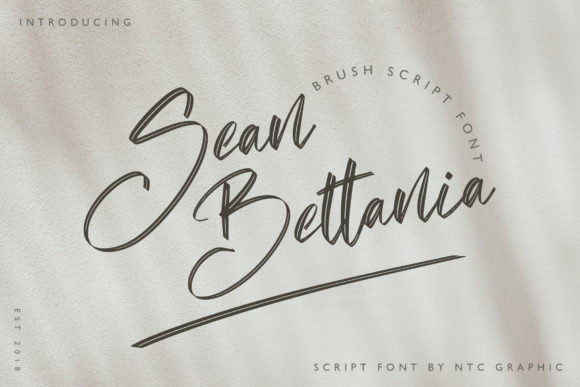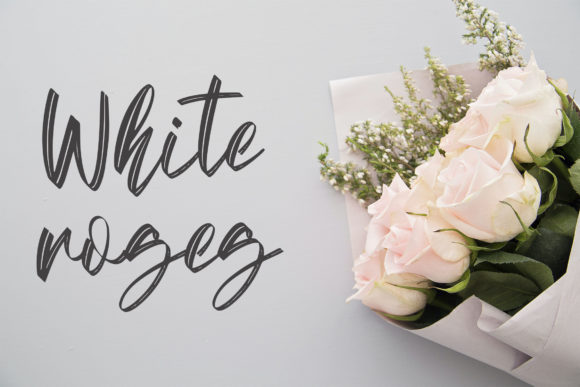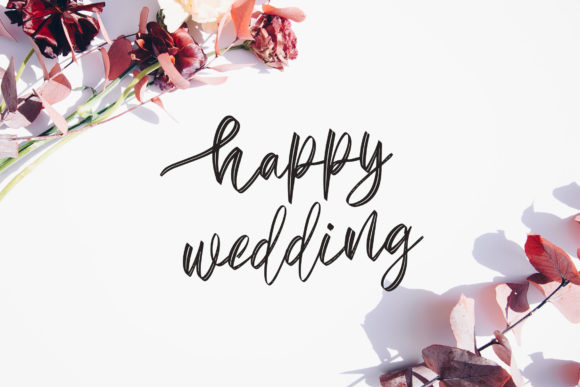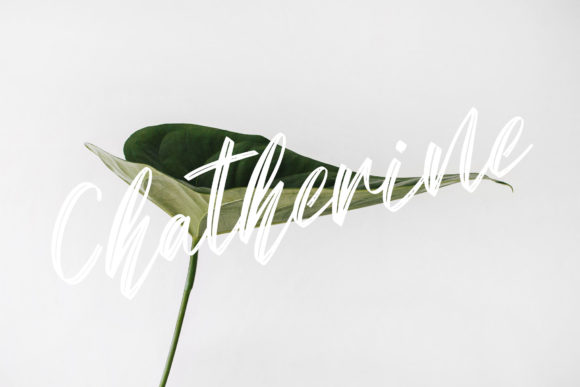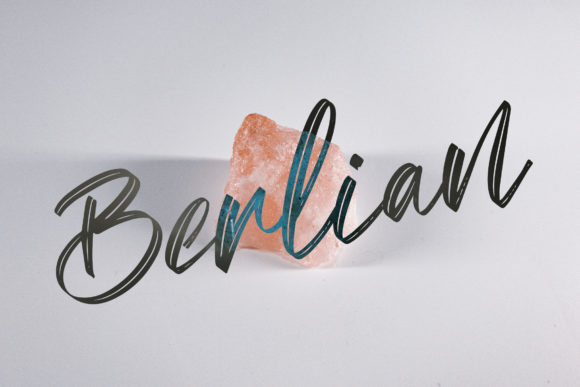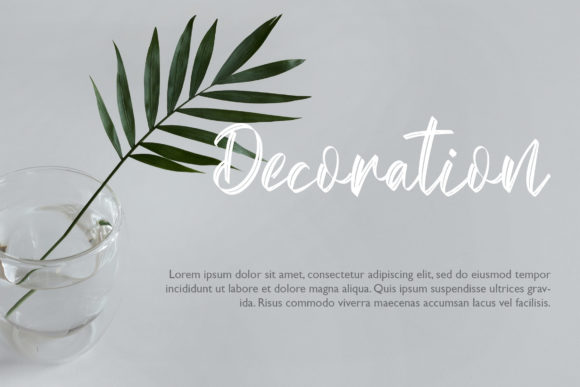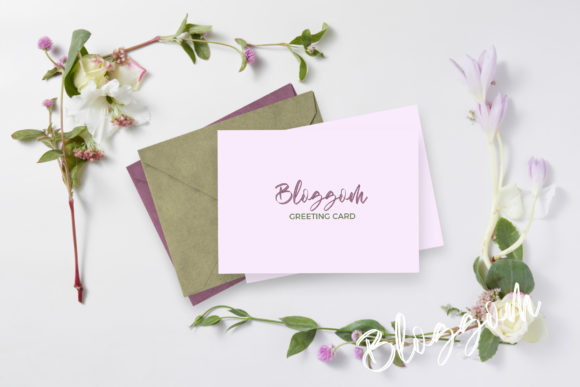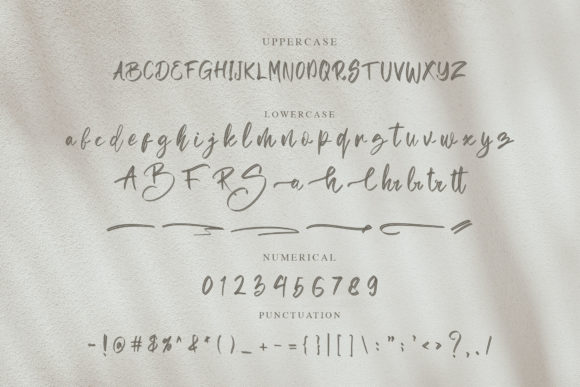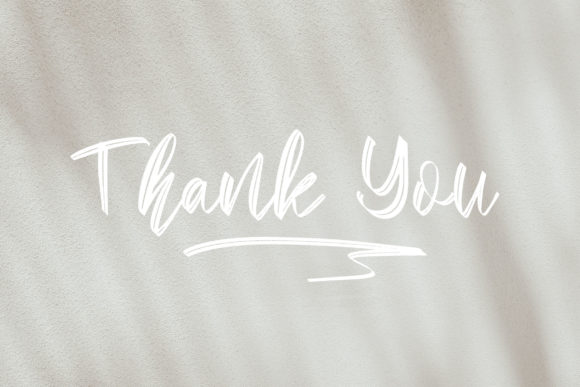
Sean Bettania Font
Sean Bettania is an enchanting handwritten font. This versatile script font has a wide spectrum of applications ranging from greeting cards to headlines and is guaranteed to add a romantic feel to your next project.